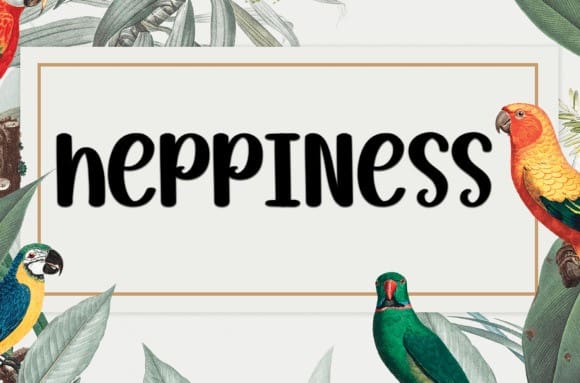
Simple Product Font
Simple Product Font is a sweet and friendly handwritten font. Fun and relaxed, this font is ideal for writing wedding invitations, cards, or any other design that might need a joyful touch!